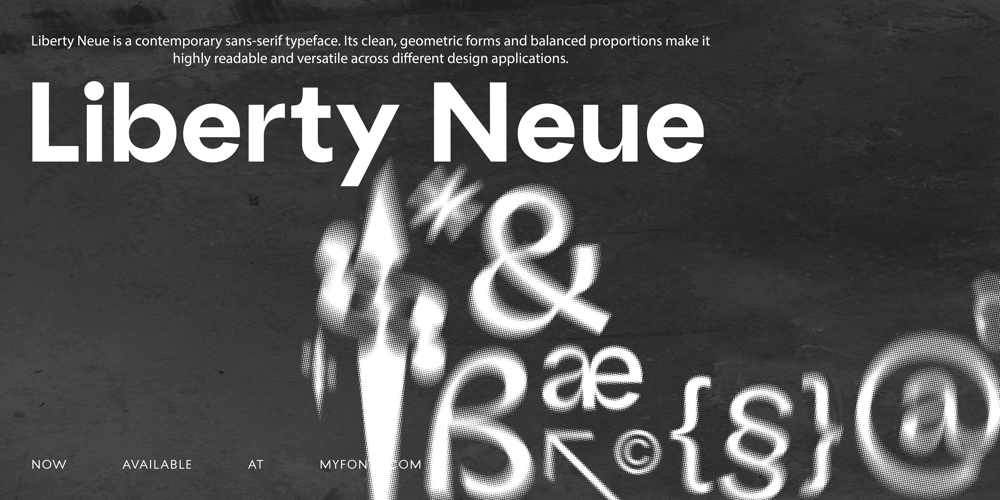
GL Liberty Neue Font Family was designed by Jorge Morales Salas and published by Gladletters. GL Liberty Neue contains 9 styles and family package options. Liberty Neue is a contemporary sans-serif typeface. Its clean, geometric forms and balanced proportions make it highly readable and versatile across different design applications. Available in a range of weights, Liberty Neue offers designers flexibility and aesthetic consistency, suitable for editorial design, branding, and digital interfaces. With extensive language support, it accommodates diverse typographic needs, ensuring effective communication in a wide array of global contexts. Liberty Neue blend of modern design and historical essential form sensibilities makes it a preferred choice for creating impactful visual communication.